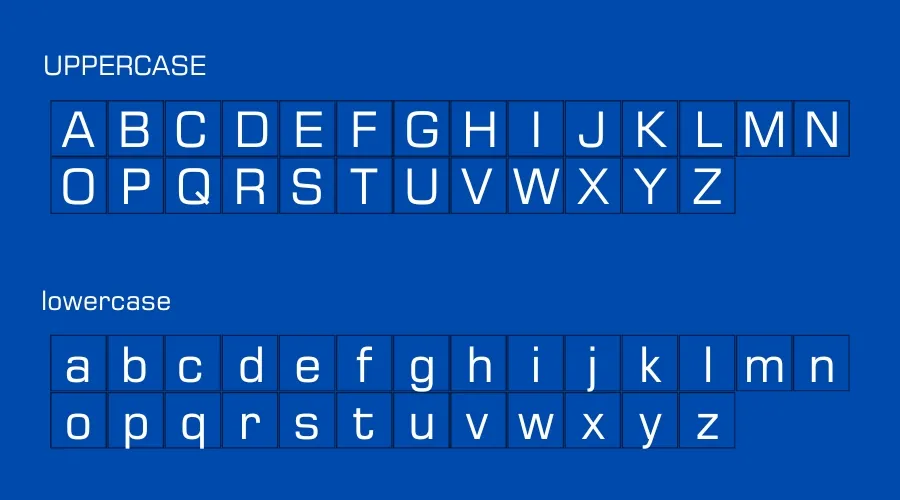
Square 721 Font
About Square 721 Font
Bitstream designed Square 721 Font. This font's humorous and appealing design may be used to create postcards, greeting, open invites, corporate, and promotional card layouts. The intriguing typeface may be used with Adobe apps to create graphics that stand out.
The magnificent typeface works best when used to enlarge a formal style. This is appropriate for undertakings of a formal nature, such as the ability to print designs.
It may be used to create fashion blogs, bills, book titles, ebooks, game designs, craft designs, as well as publication layouts.
The fantastic font is helpful for Video clip previews and web designing. A typeface is a great option for layouts for websites and blogs.